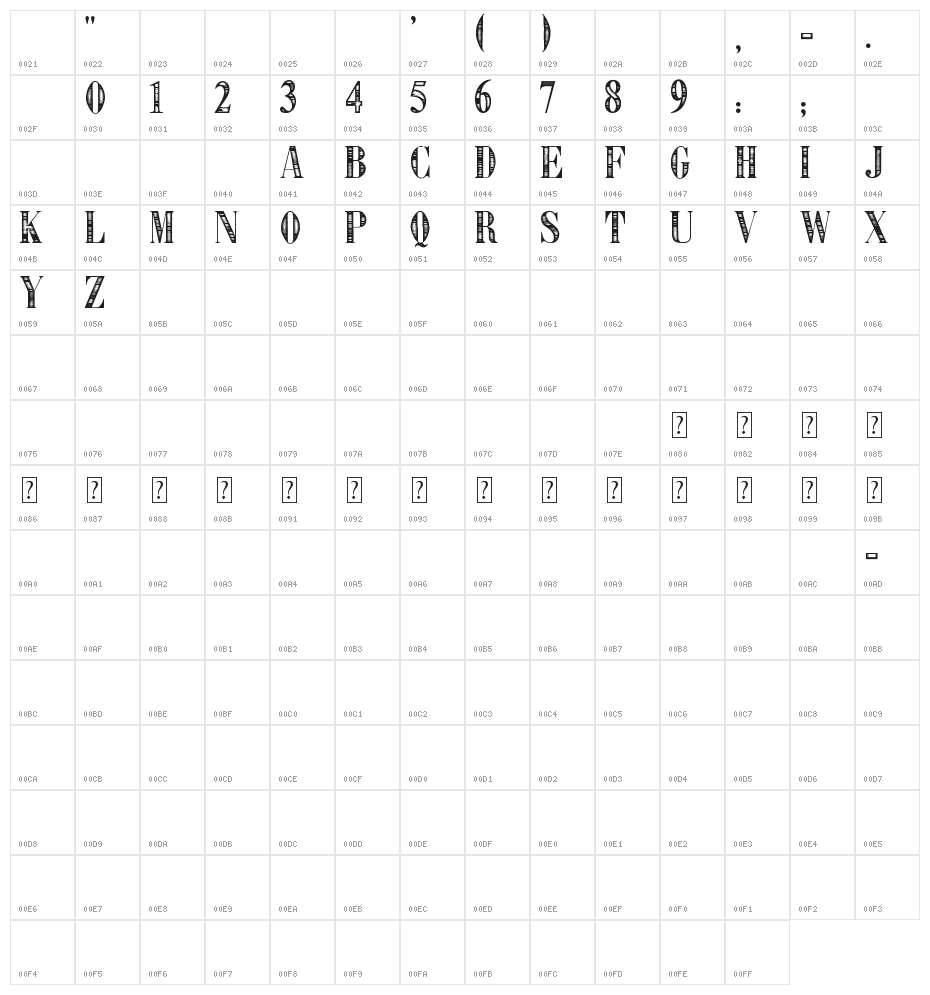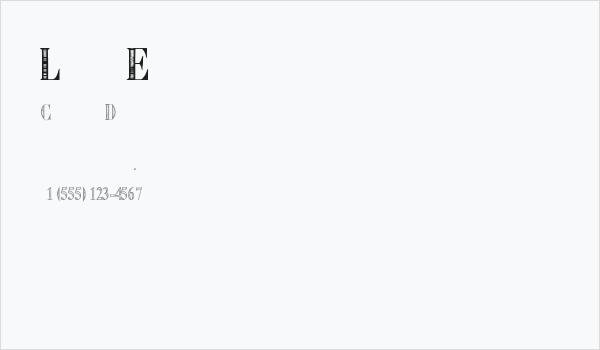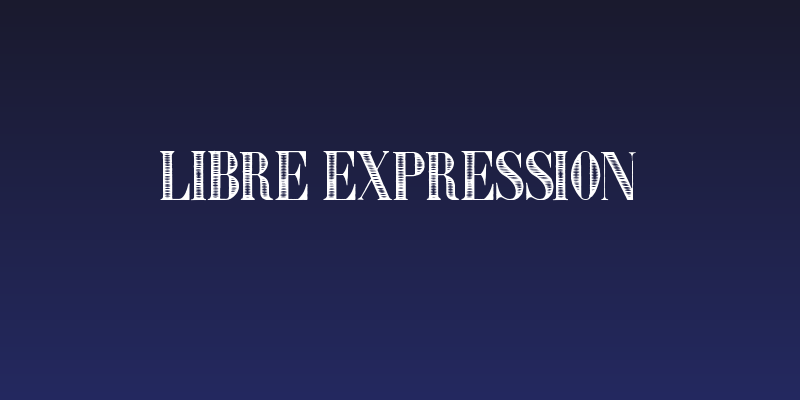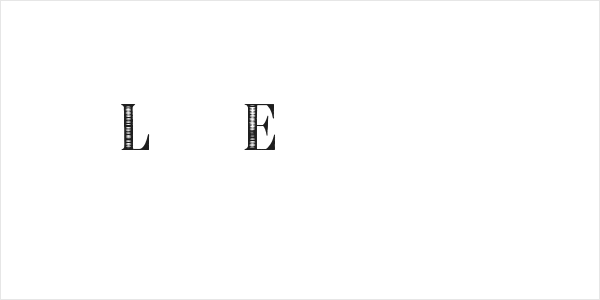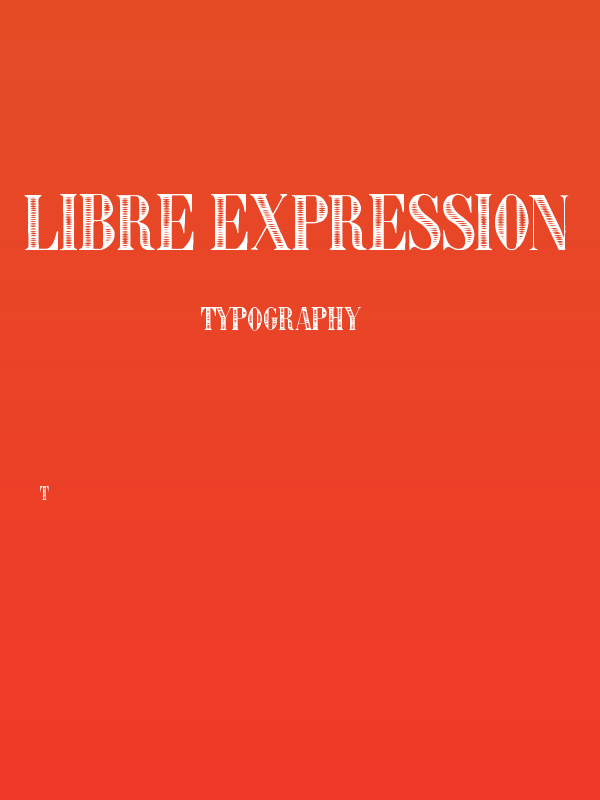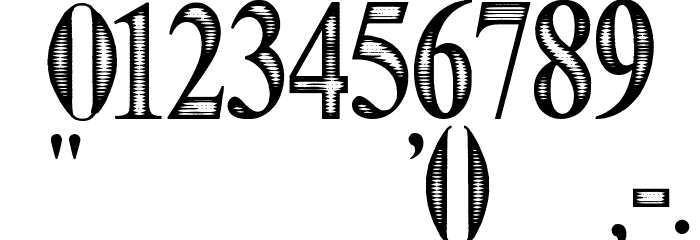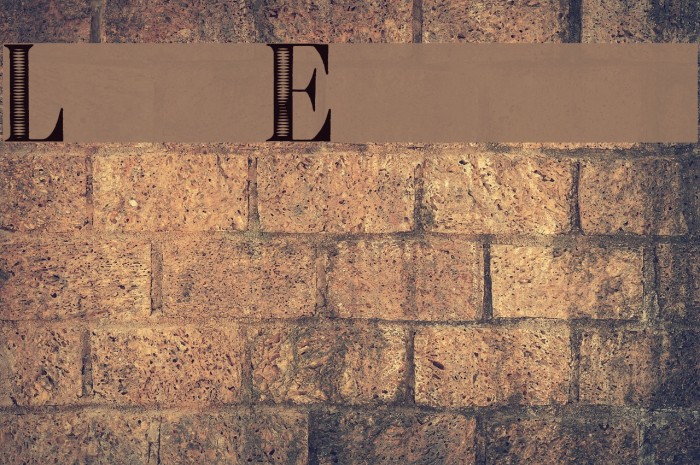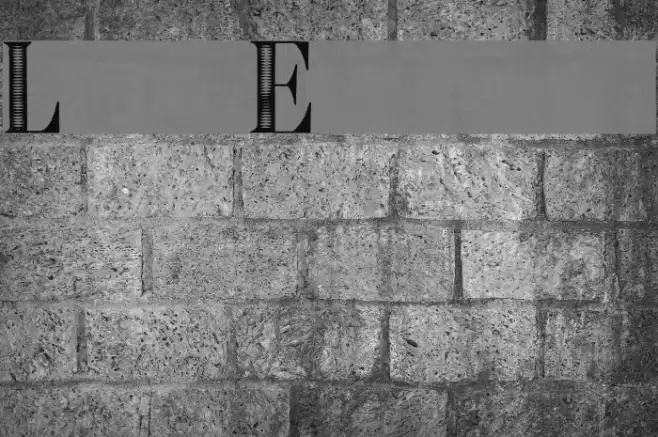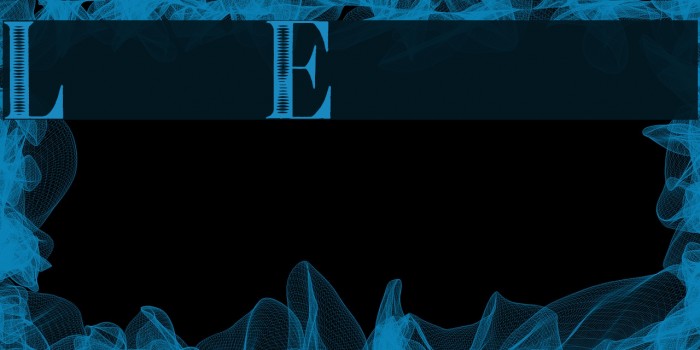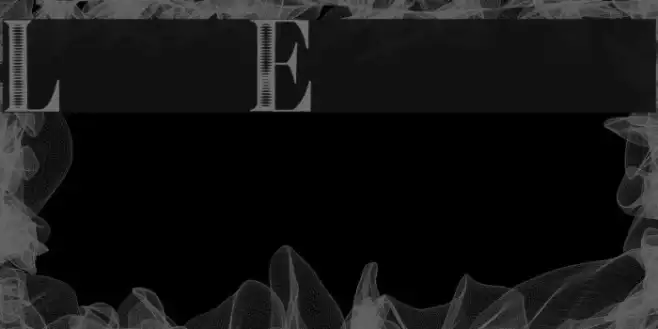
Libre Expression Font
Libre Expression Description
This font features a bold and decorative style with a distinctive striped pattern within each character. The uppercase letters are tall and elegant, with sharp serifs that add a touch of sophistication. The numbers maintain the same decorative style, ensuring consistency across all characters. The font's unique design makes it stand out, with each letter and number having a strong presence. The special characters are also designed to match the overall aesthetic, making this font suitable for creative and eye-catching designs.
| Proposed Projects | Ideal for poster designs, branding projects, and any creative work that requires a striking and unique typeface. |